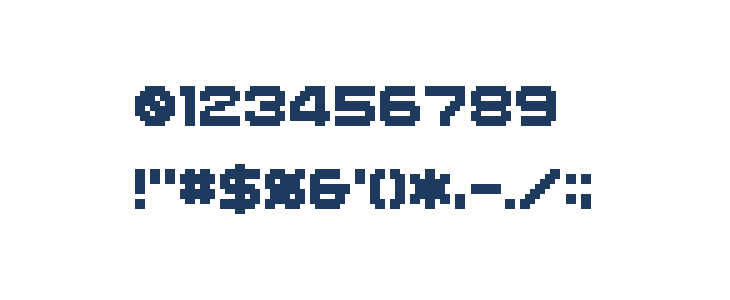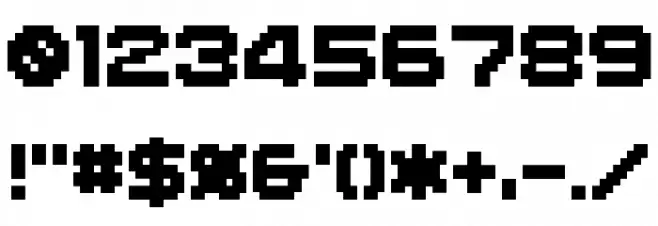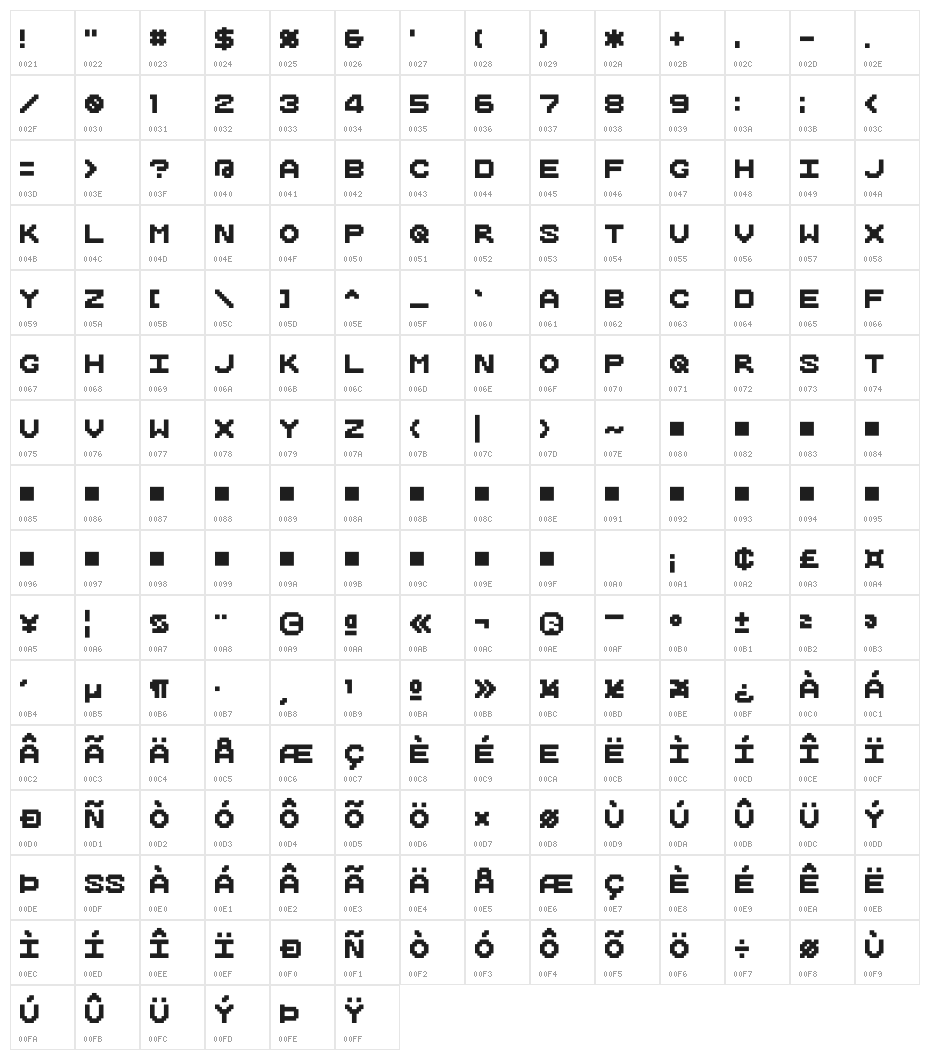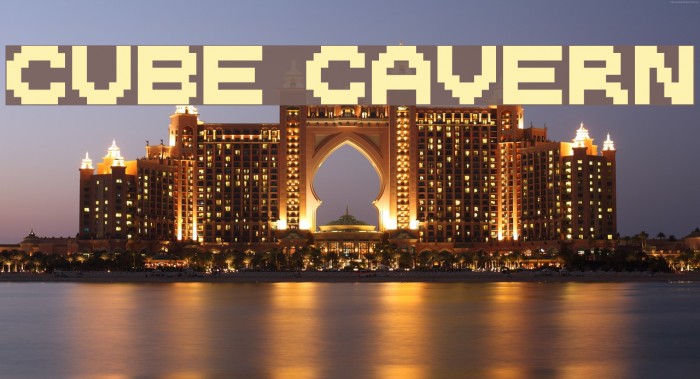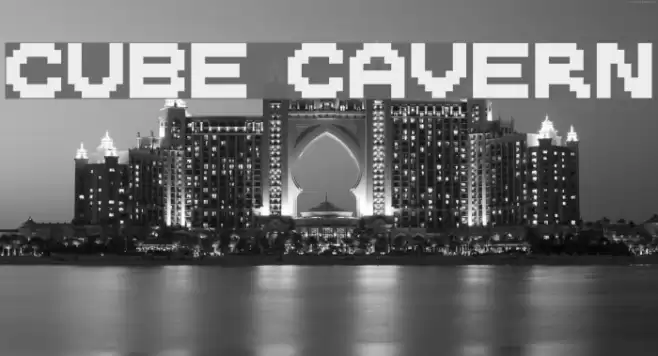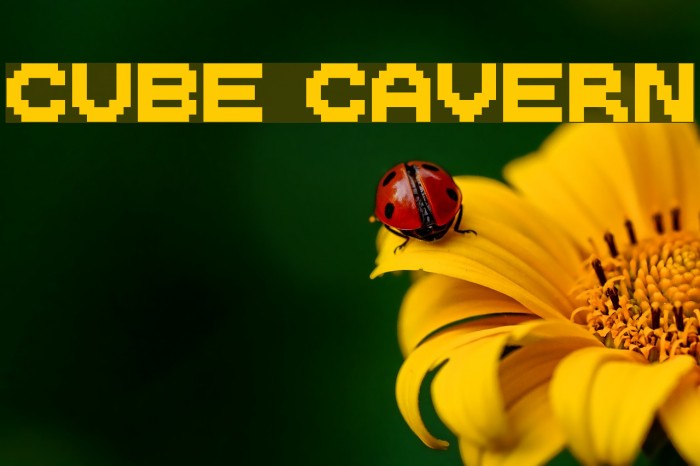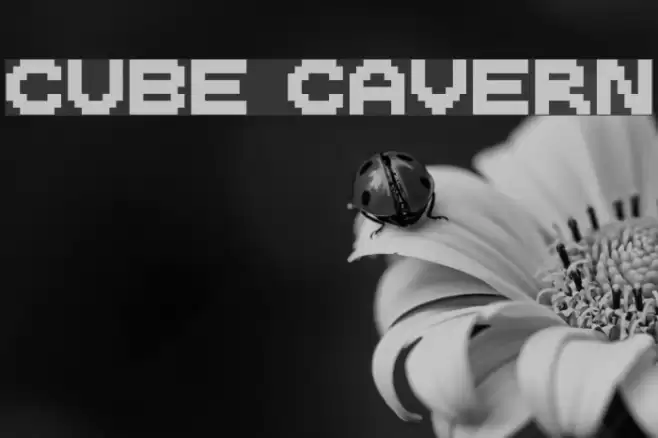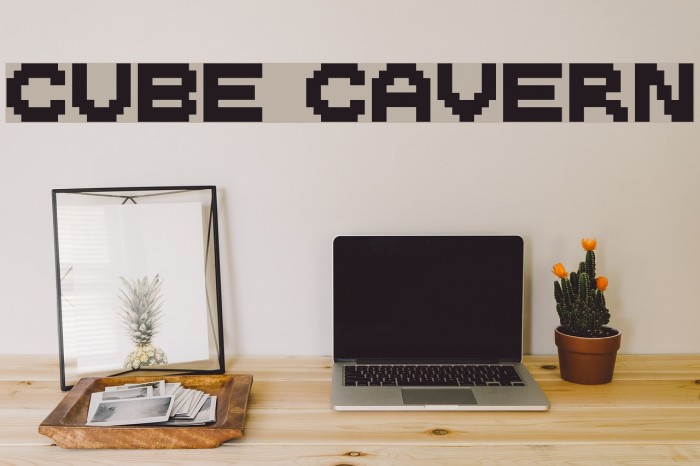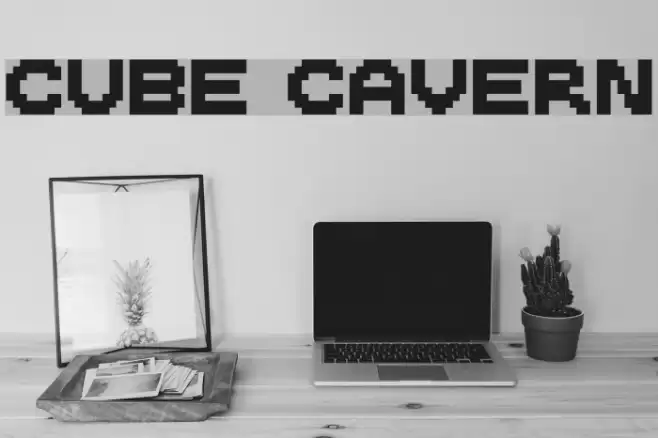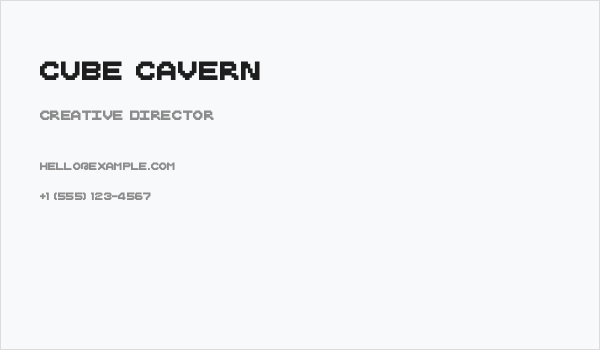
Cube Cavern Font
Cube Cavern Description
This font features a bold, pixelated design reminiscent of classic video game graphics. Each character is constructed with a blocky, square form that gives it a distinctly digital appearance. The uniformity in height and width across characters ensures a cohesive look, while the sharp edges and lack of curves emphasize its retro style. The font is highly legible and maintains a consistent weight throughout, making it suitable for digital displays and retro-themed projects. Its geometric structure and straightforward design evoke a sense of nostalgia, ideal for capturing the essence of early computer graphics.
| Use Case | Headlines, Logos, Digital displays |
| Proposed Projects | Ideal for retro video games, digital displays, posters, and any project requiring a nostalgic, digital aesthetic. |